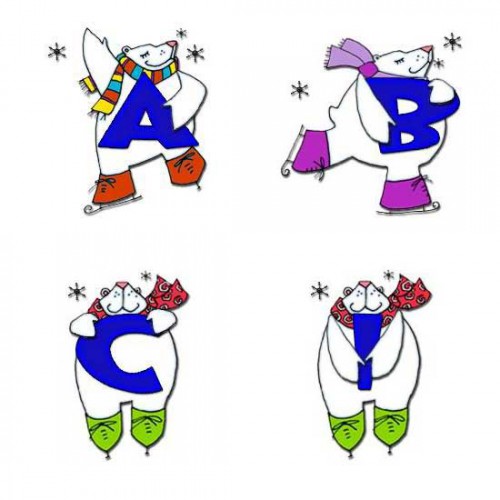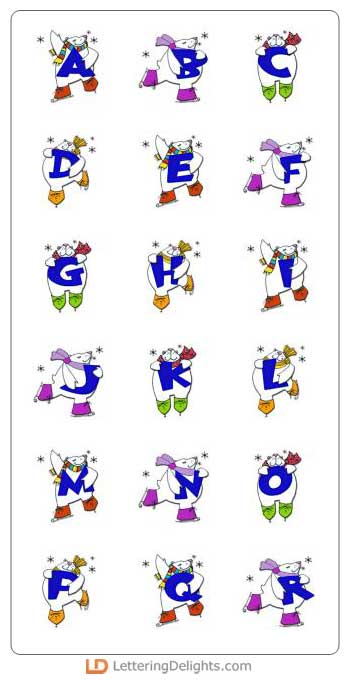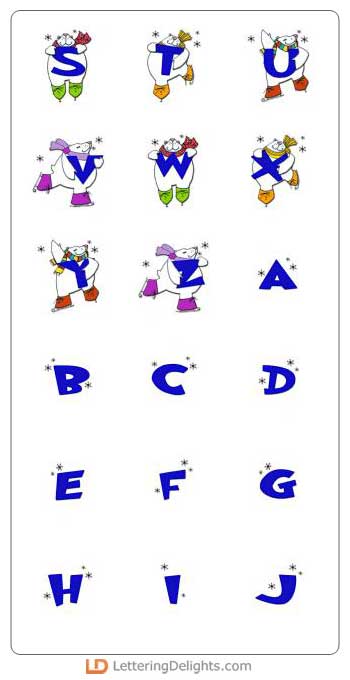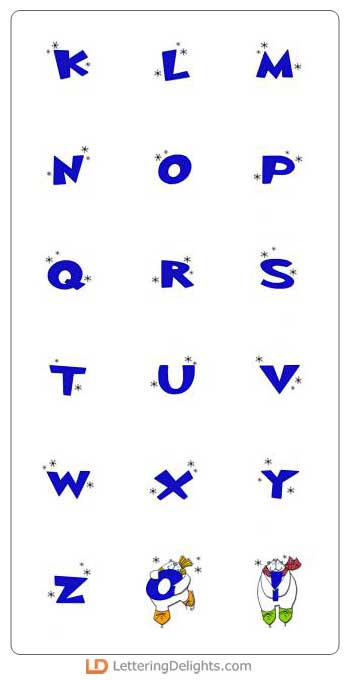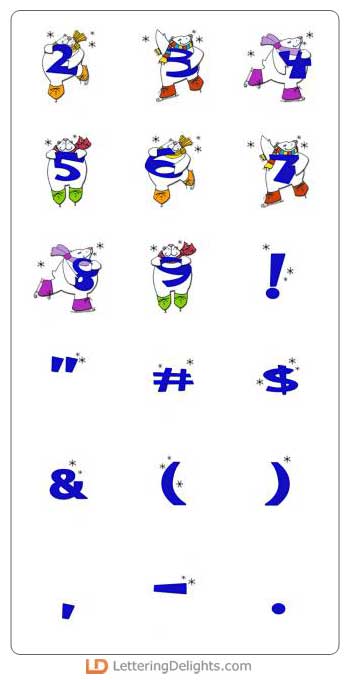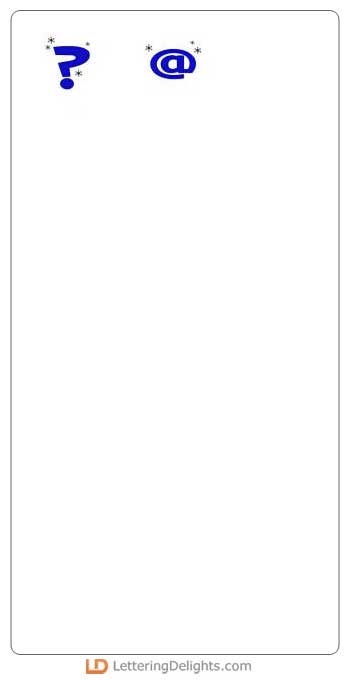
The capital letters of this alphabet have happy bears dancing around on ice skates. It is adorable! This alphabet has a corresponding Journaling Delight set called JD Skating Bears.